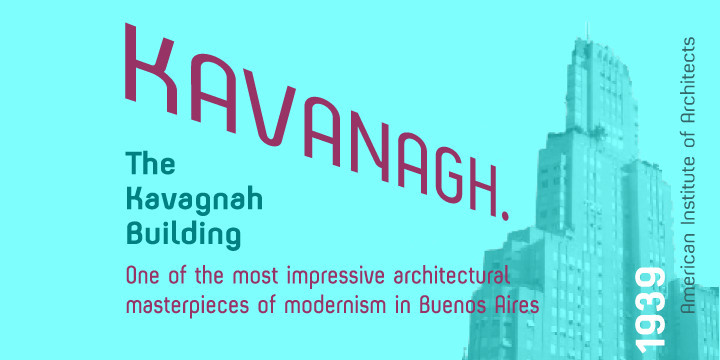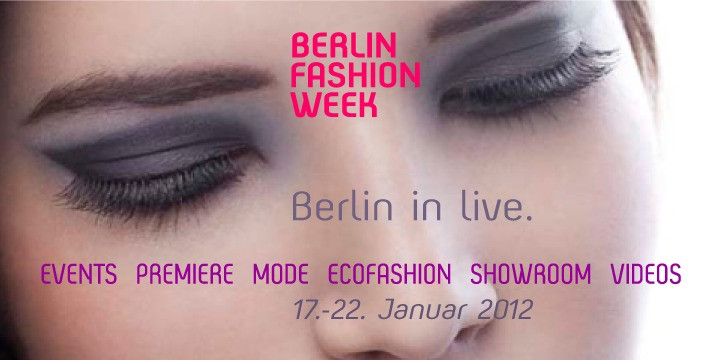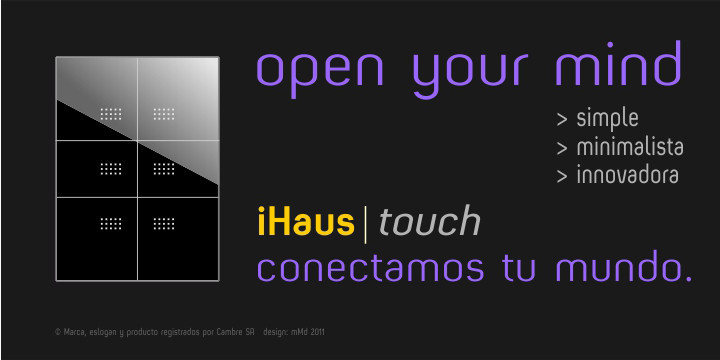
Beba Font
Beba is based on geometric structures, where the same formal characteristics are applied to as many letters as possible.
It is a sans-serif monoline typeface. It has a modern, clean and minimalist image; ideal to use for advertising, printed or digital graphics and signage system design.